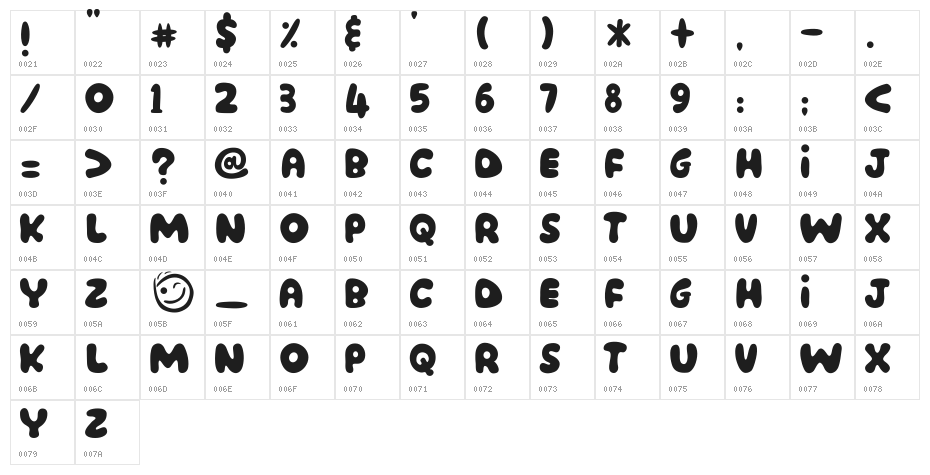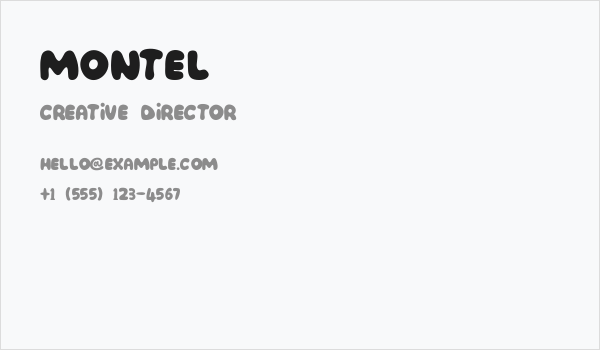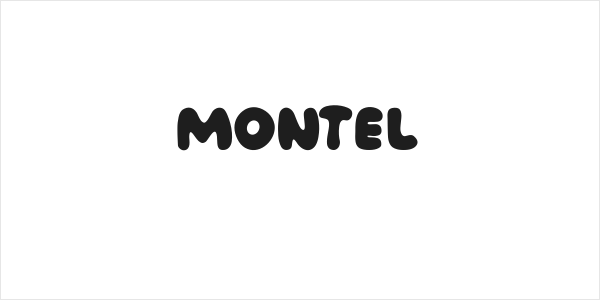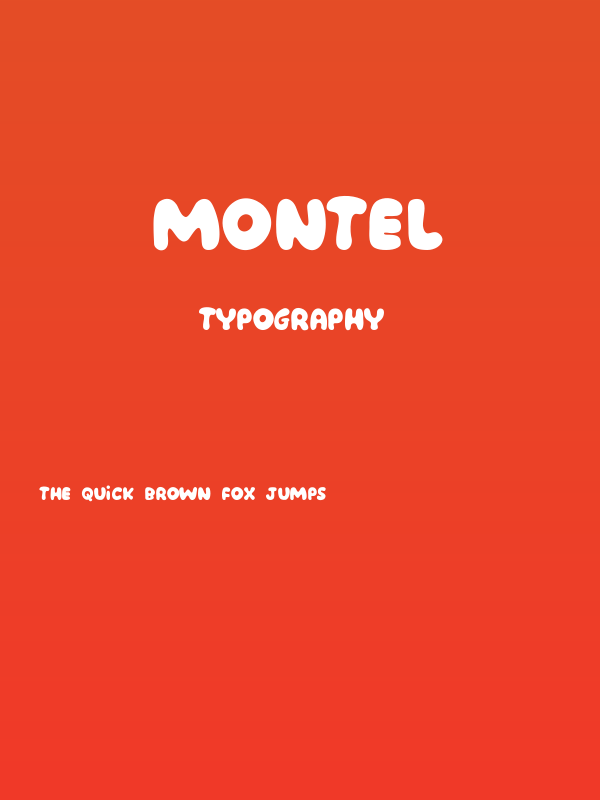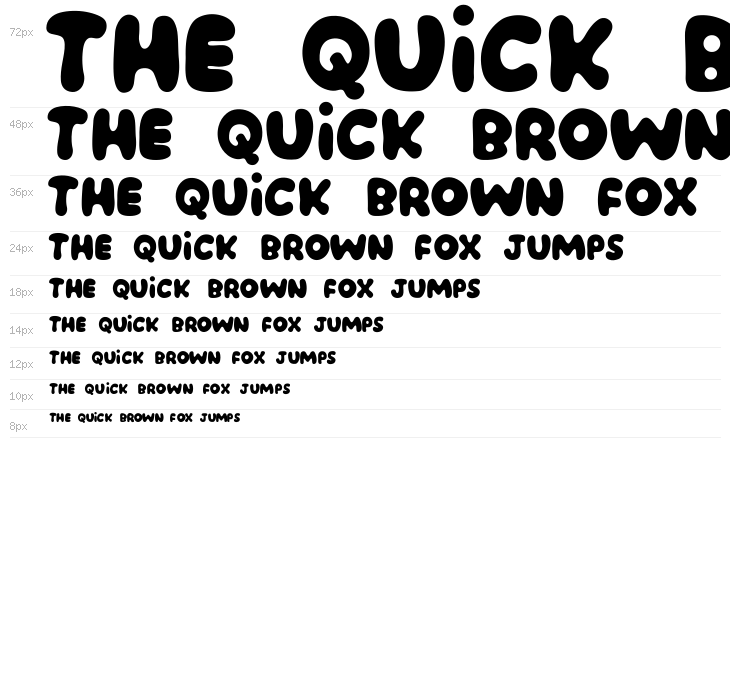
Montel Font
Montel Description
This playful and bold font features rounded, bubbly characters that exude a sense of fun and whimsy. The letters are thick and have a consistent weight throughout, giving them a strong presence on the page. The rounded edges and lack of sharp angles contribute to a friendly and approachable aesthetic. This font is particularly eye-catching and is designed to grab attention, making it ideal for creative and informal applications. The numbers and special characters maintain the same playful style, ensuring consistency across all text elements.